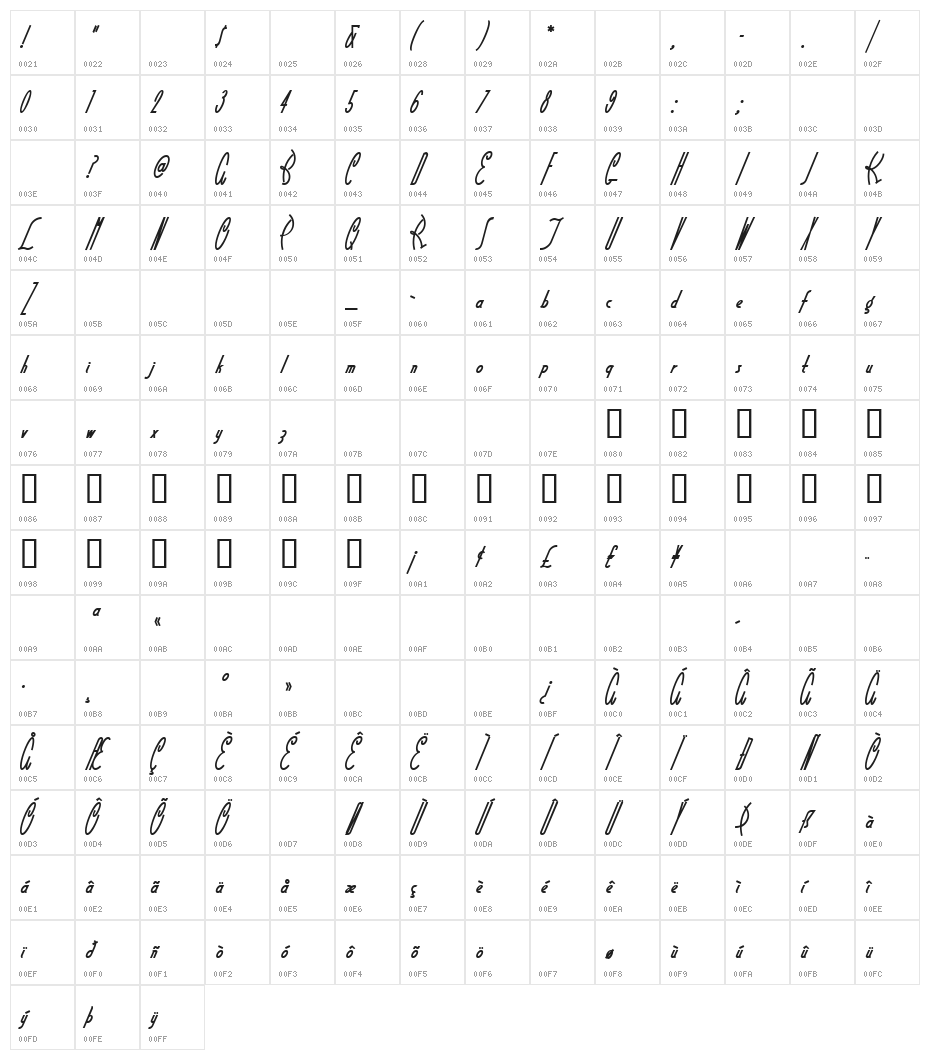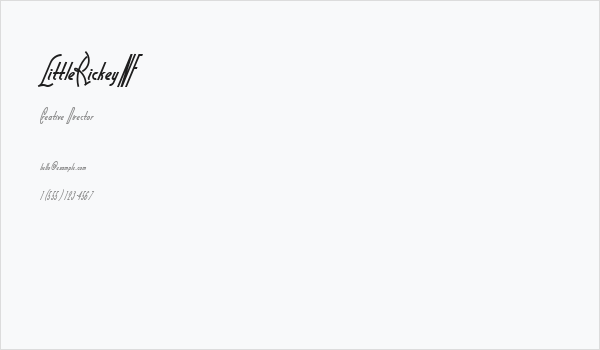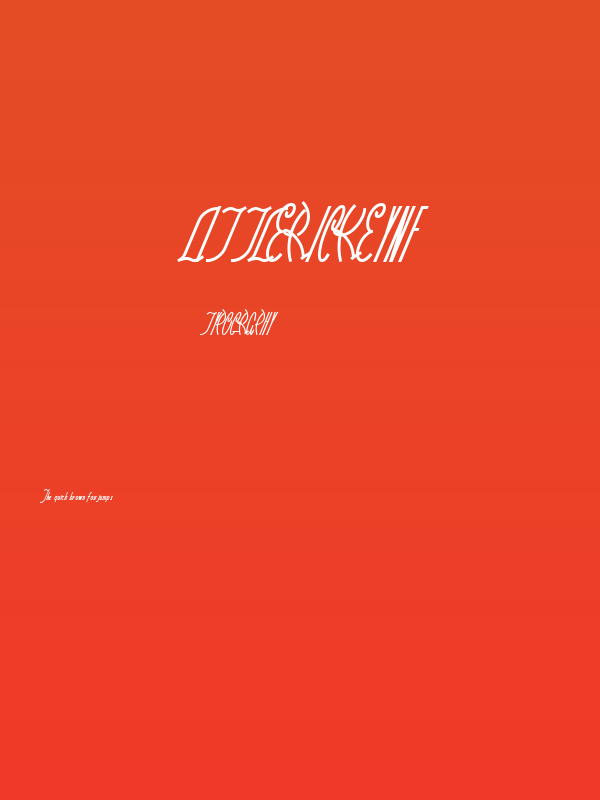
LittleRickeyNF Font
LittleRickeyNF Description
This font features a dynamic and energetic style with a strong slant, giving it a sense of motion and speed. The characters are elongated and narrow, with a consistent stroke width that maintains a sleek and modern appearance. The uppercase letters are particularly bold and striking, while the lowercase letters maintain a more subtle yet cohesive look. Numbers and special characters follow the same stylistic cues, ensuring uniformity across all text. The overall design is both eye-catching and versatile, suitable for a variety of creative applications.
| Proposed Projects | Ideal for branding, advertising, and editorial design where a sense of motion and modernity is desired. |